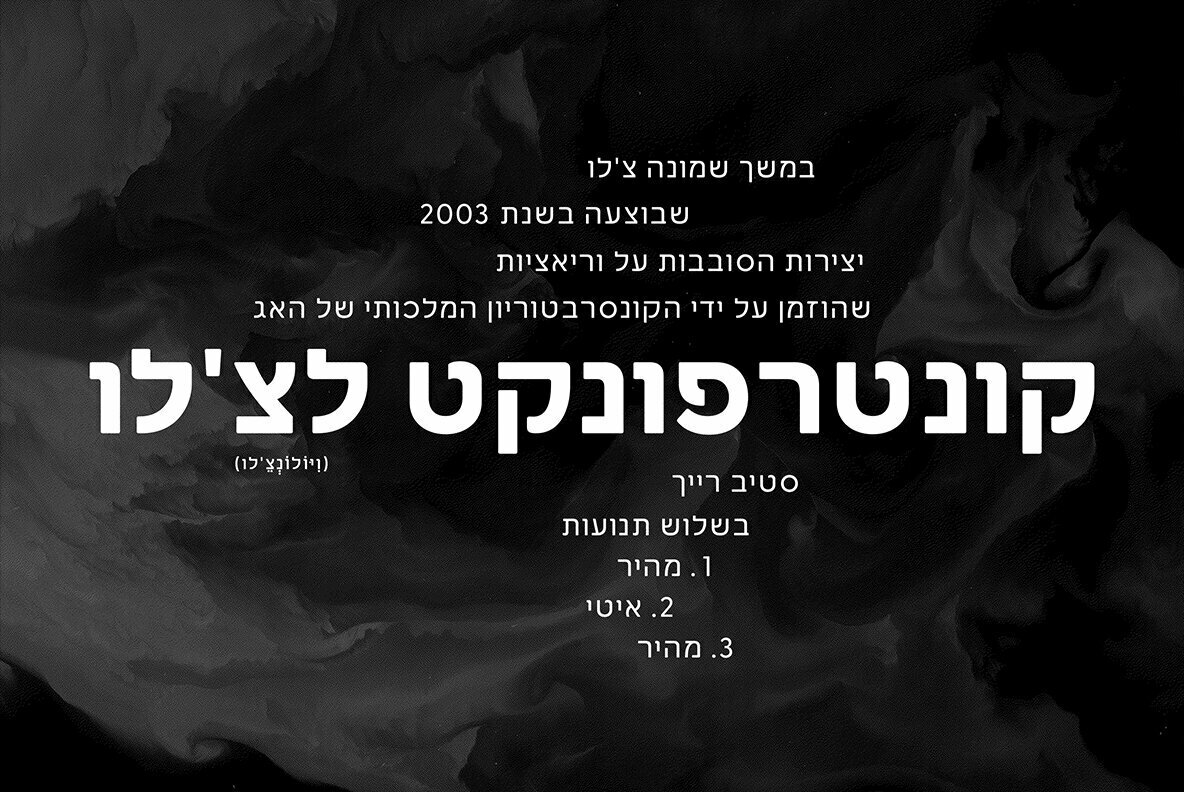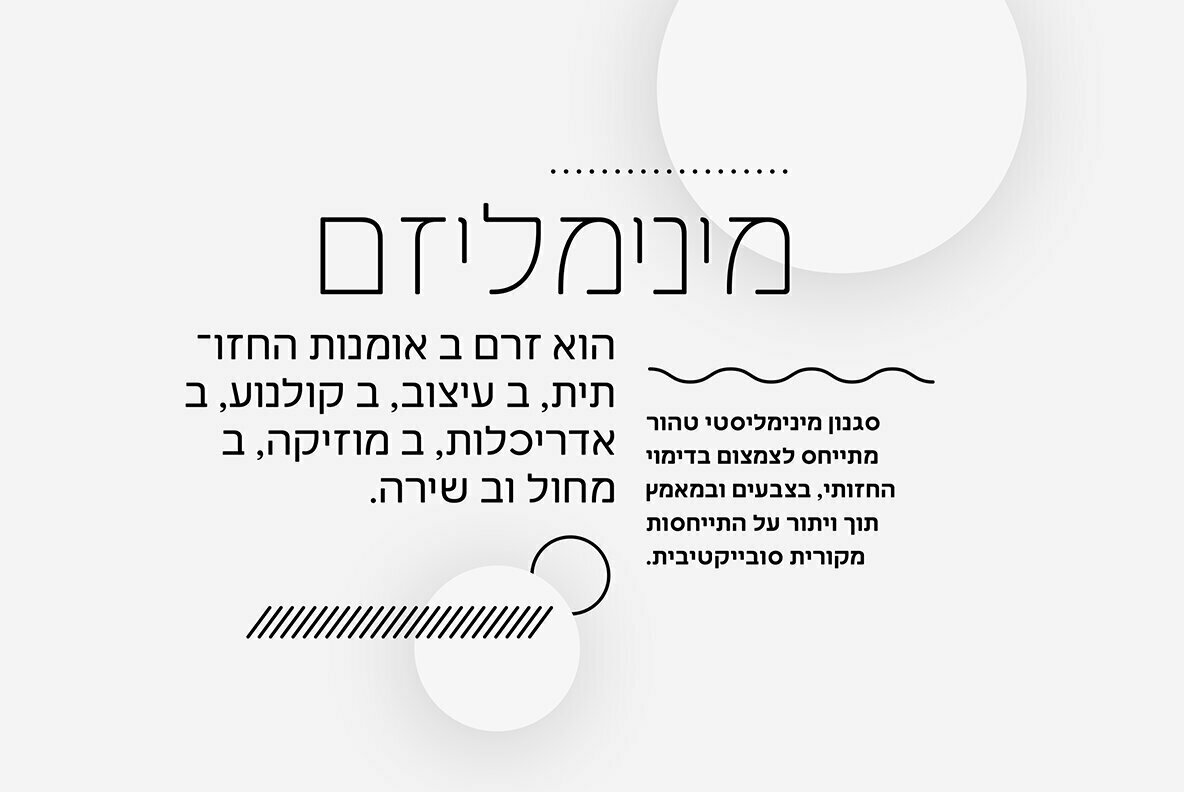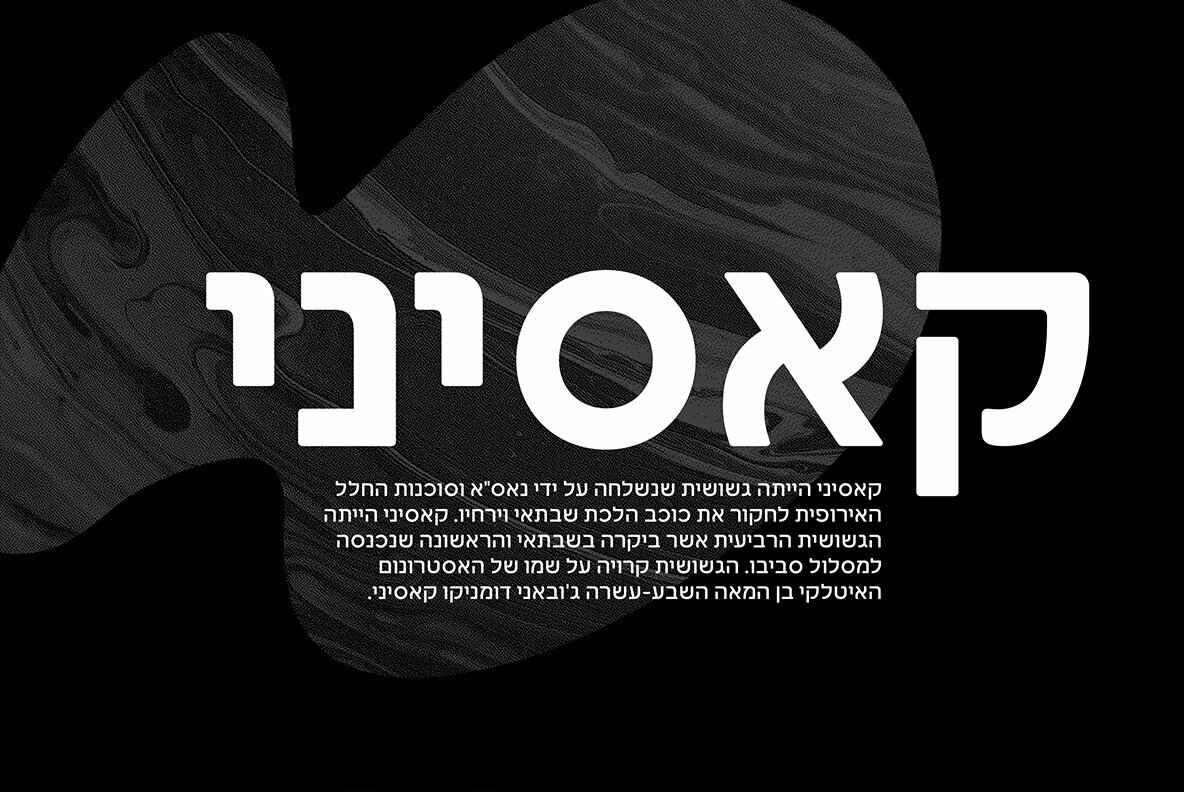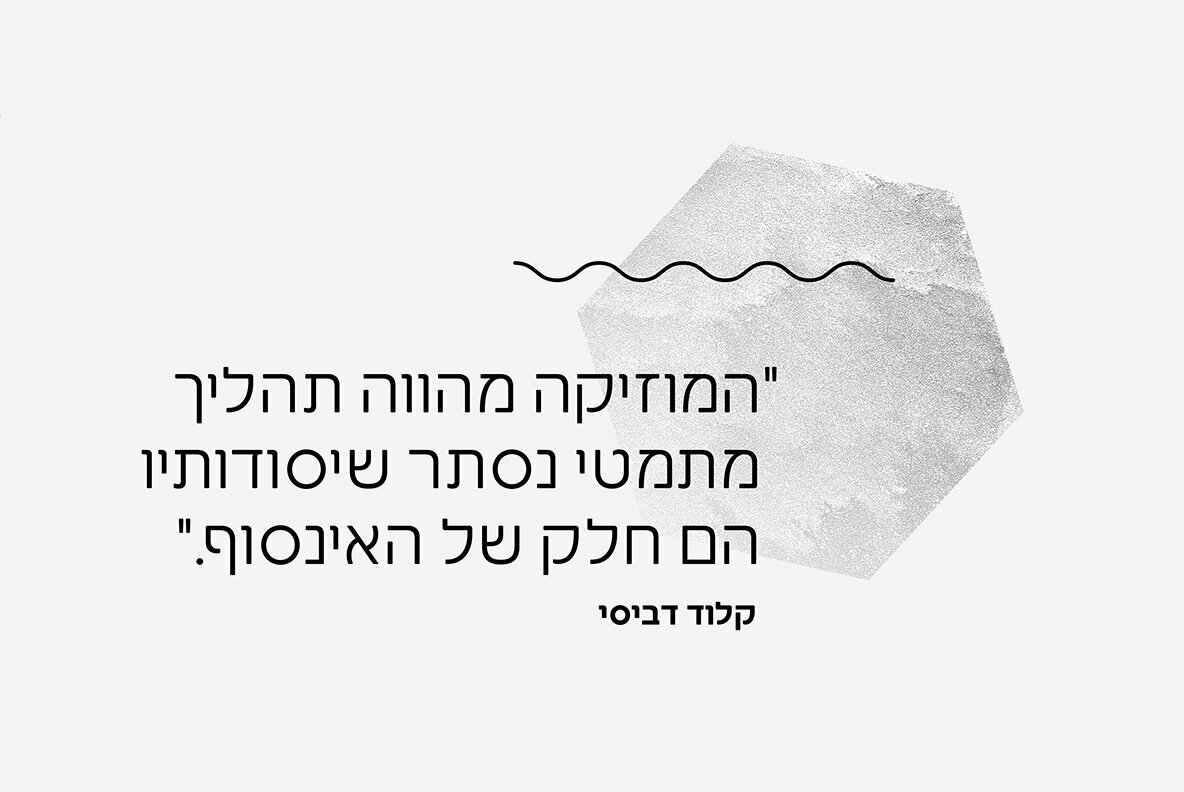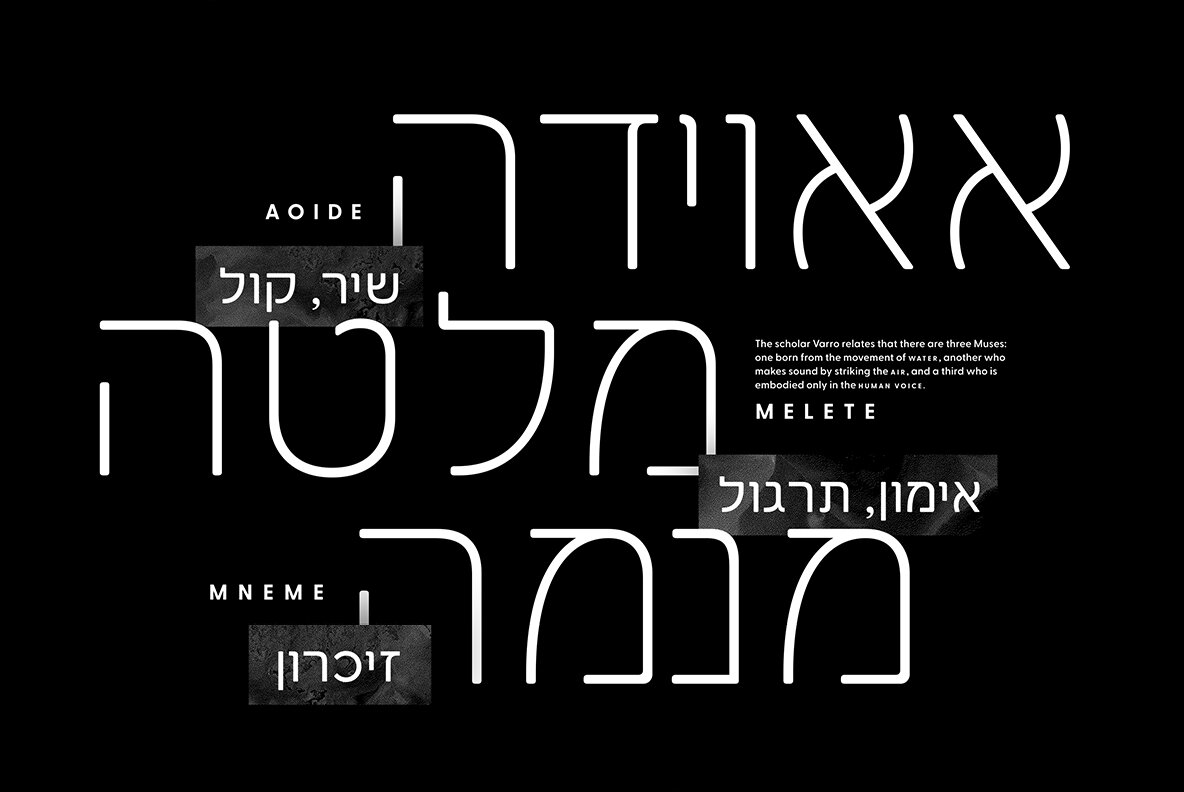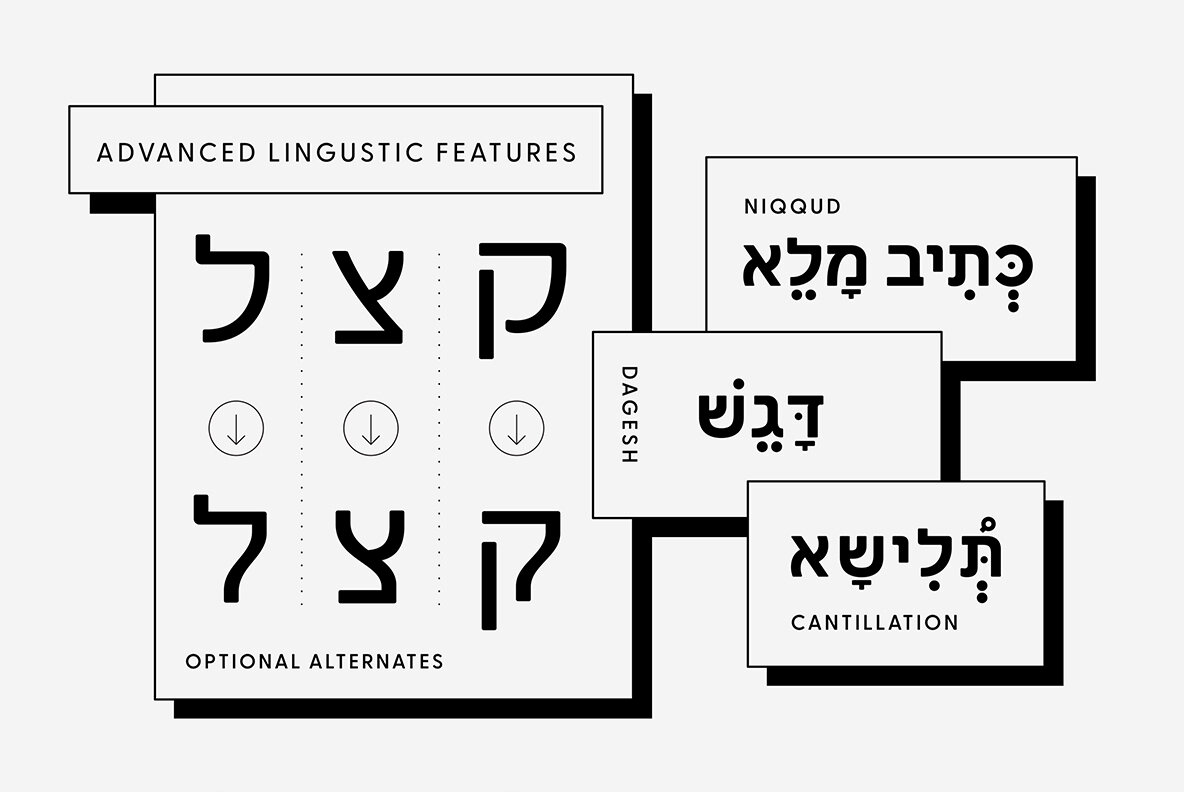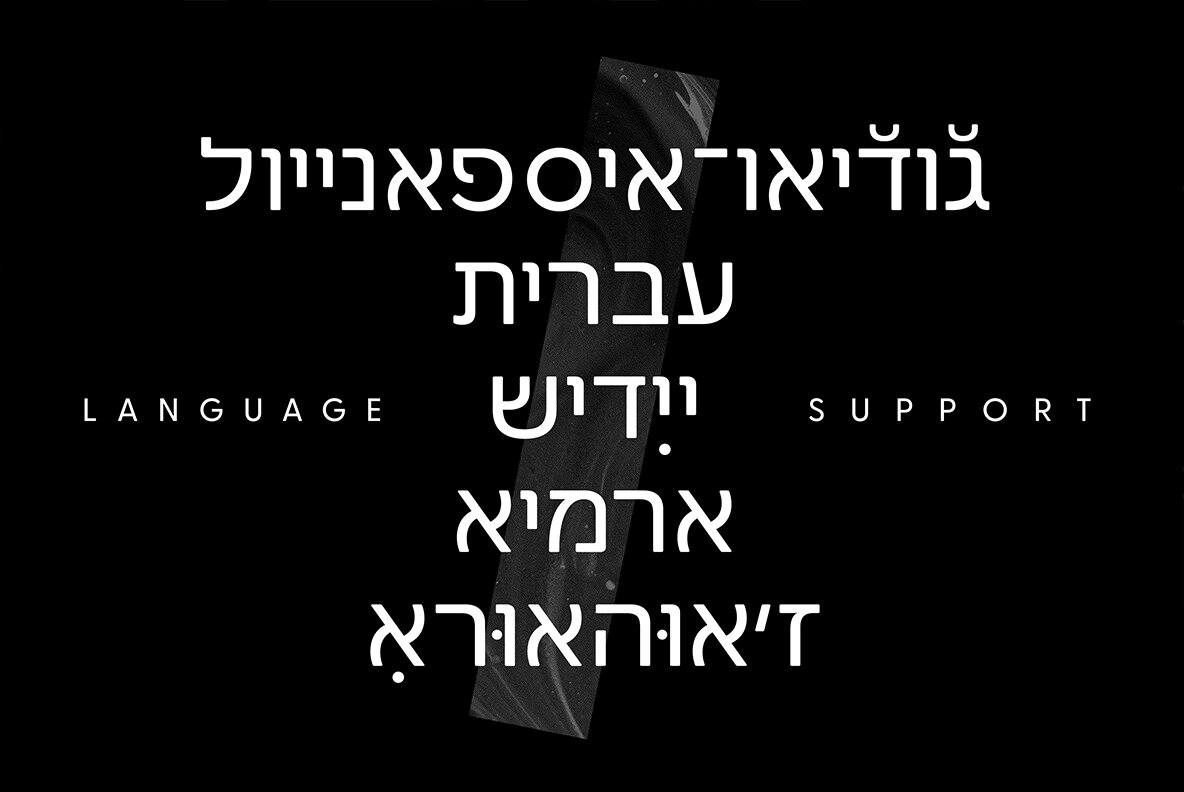
Greycliff Hebrew CF Font
Greycliff Hebrew CF adapts Greycliff’s soft, geometric design to the Hebrew script. Both Latin and Hebrew glyphs are included, allowing for visually cohesive multiple-script applications. Greycliff’s original nine weights are covered, alongside diacritics, cantillation marks, and wide Hebrew-script language support.
Greycliff Hebrew CF works as a complete, self-contained type system, with both Hebrew and Latin scripts included and designed to compliment one another.